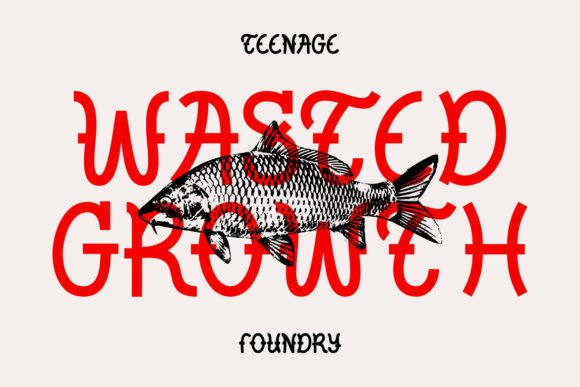
Unleash your creativity with Wasted Growth Font, an artistic display font that leaves an everlasting impression. Its bold and distinctive style, meticulously crafted by teenagefoundry, takes the spotlight in merchandise designs, covers, posters, and beyond. Wasted Growth Font is an artist's dream, a tool that transforms ideas into captivating visuals. With its expressive letterforms, this font commands attention in the world of design, leaving a lasting impact on your audience.
Wasted Growth Font's most prominent feature is its mesmerizing letter "E," an artistic masterpiece that captures the essence of uniqueness. It's not just a letter; it's a statement, a symbol of Wasted Growth Font's creative prowess. This font thrives in settings where individuality and expression take center stage. Imagine your designs adorned with Wasted Growth Font's distinctive letter "E," resonating with your audience and igniting a spark of creativity.
Not only does Wasted Growth Font boast an exceptional letter "E," but it also features a comprehensive collection of glyphs and ligatures, accessible with ease thanks to its PUA encoding. This opens up a world of possibilities, allowing you to craft intricate designs with finesse and precision. Whether it's a captivating social media post, an enthralling poster, or a visually stunning website, Wasted Growth Font empowers you to weave your creative magic seamlessly.
To further enhance your design journey, Wasted Growth Font comes with an incredible bonus: 9 captivating illustrations that spark creativity and add an extra dash of flair to your projects. These illustrations are not mere embellishments; they're carefully curated to complement the font's aesthetic, providing harmonious elements that elevate your designs to new heights. Let these illustrations ignite your imagination and create visual narratives that resonate with your audience.